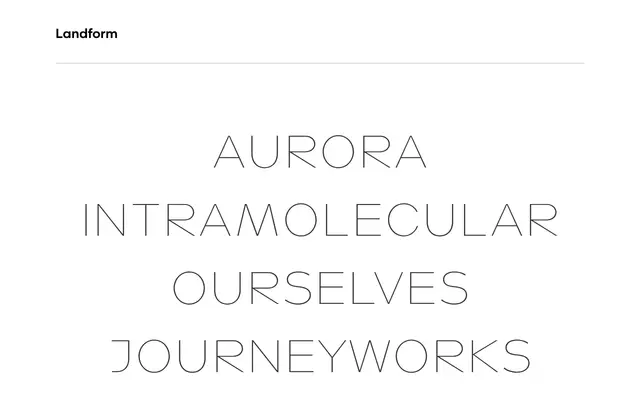
Landform
Process Type Foundry · Eric Olson · 2022
A six-weight sans by Eric Olson sitting between European geometric and American grotesque traditions, with distinctive capitals and a simplified lowercase.
Drawn by Eric Olson and released in 2022, Landform draws on European geometric typefaces and the confident lettering found in 20th-century American architectural signage. Six weights run from Light to Black with matching italics, giving 12 styles in total, and the design is intended to hold up across both print and screen. OpenType features include case-sensitive glyphs, stylistic alternates, tabular lining figures and pre-built fractions.
Positioned explicitly between geometric and grotesque traditions, with European geometric influences alongside American 20th-century architectural lettering; simplified lowercase and distinctive capitals place it in a geometric grotesque hybrid.